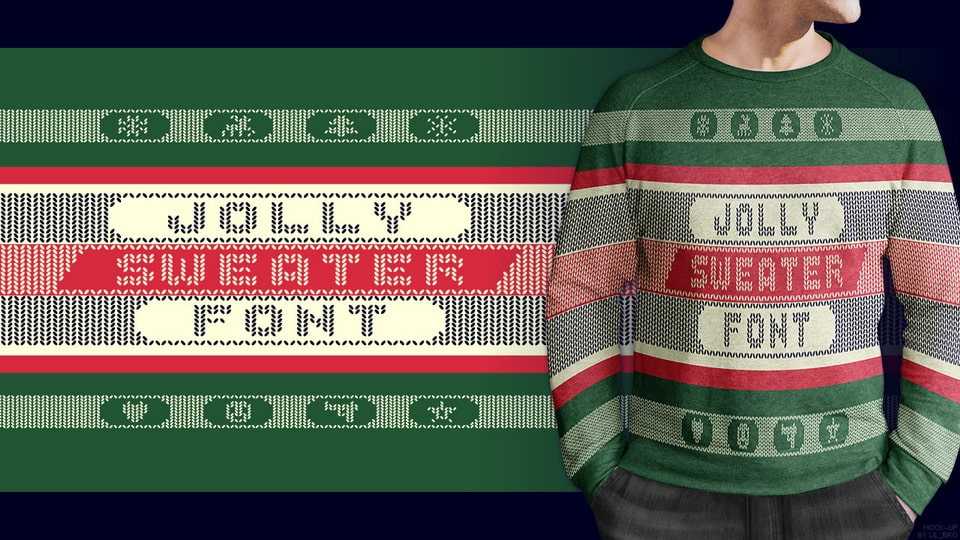
Download Jolly Sweater font, a heartwarming font inspired by the intricate charm of Christmas knitting patterns. Jolly Sweater font is artfully crafted, evoking the cozy nostalgia and festive spirit of holiday sweaters and hand-knit decorations.